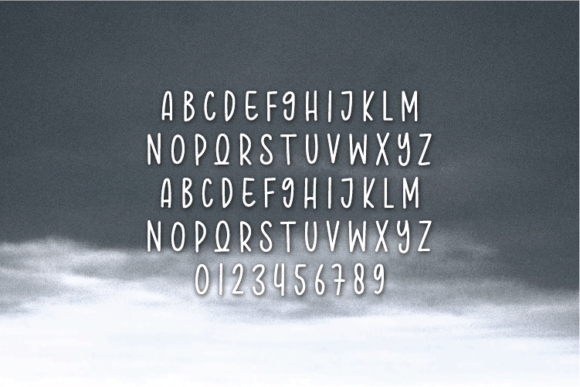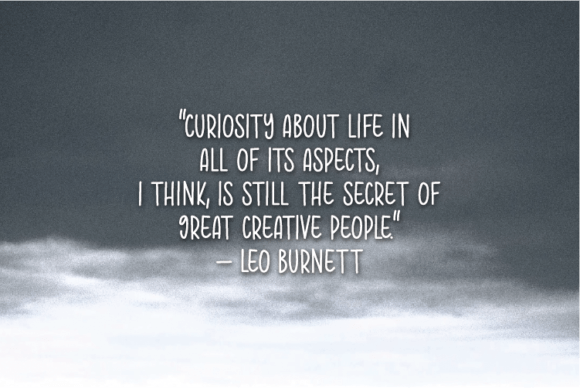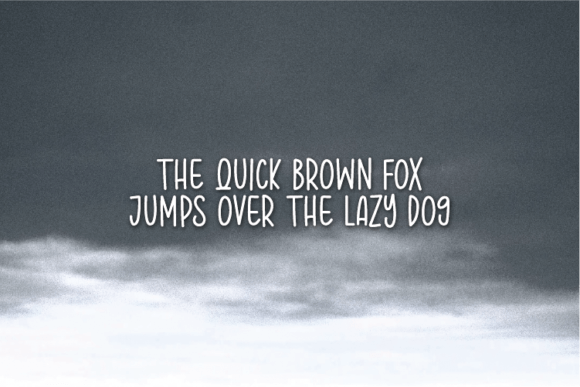
Introducing Florishtry Font: The Perfect Handwritten Companion for Designers and Crafters
Are you tired of using the same old fonts in your designs? Do you want to add a touch of personality and whimsy to your creations? Look no further than Florishtry Font, a beautiful and versatile handwritten font that’s perfect for designers and crafters alike. In this article, we’ll dive into the world of Florishtry and explore its features, benefits, and uses.
What is Florishtry Font?
Florishtry is a natural and casual handwritten font that’s designed to bring a sense of warmth and approachability to your designs. With its flowing lines and organic feel, Florishtry is the perfect choice for anyone looking to add a personal touch to their creations. Whether you’re working on a branding project, a craft tutorial, or a social media graphic, Florishtry is sure to become your go-to font.
Key Features of Florishtry Font
- Handwritten style: Florishtry has a beautiful, handwritten style that’s perfect for adding a personal touch to your designs.
- Natural and casual feel: This font has a relaxed, organic feel that’s perfect for designs that need to feel approachable and friendly.
- Versatile: Florishtry can be used for a wide range of projects, from branding and advertising to crafting and DIY tutorials.
- Easily readable: Despite its handwritten style, Florishtry is easy to read and understand, making it perfect for body text and headings.
Benefits of Using Florishtry Font
So why should you choose Florishtry Font for your next project? Here are just a few benefits of using this amazing font:
- Adds personality to your designs: With Florishtry, you can add a touch of personality and whimsy to your designs, making them stand out from the crowd.
- Perfect for crafty and DIY projects: If you’re working on a craft or DIY project, Florishtry is the perfect choice. Its handmade feel is perfect for tutorials, patterns, and other crafty designs.
- Great for branding and advertising: Florishtry’s natural and casual feel makes it perfect for branding and advertising projects that need to feel approachable and friendly.
How to Use Florishtry Font
Using Florishtry Font is easy. Here are a few tips to get you started:
- Pair it with other fonts: Florishtry looks great when paired with other fonts, such as sans-serif fonts for a modern look or script fonts for a more elegant feel.
- Use it for headings and body text: Florishtry is easy to read, making it perfect for both headings and body text.
- Experiment with colors and textures: Florishtry looks great in a variety of colors and textures. Experiment with different combinations to find the one that works best for your design.
In conclusion, Florishtry Font is a beautiful and versatile handwritten font that’s perfect for designers and crafters alike. With its natural and casual feel, Florishtry is sure to become your go-to font for a wide range of projects. Whether you’re working on a branding project, a craft tutorial, or a social media graphic, Florishtry is the perfect choice. So why wait? Download Florishtry Font today and start adding a touch of personality to your designs.